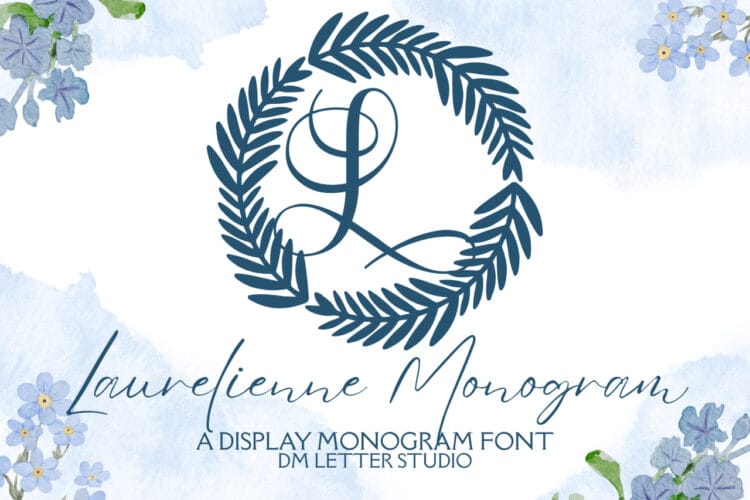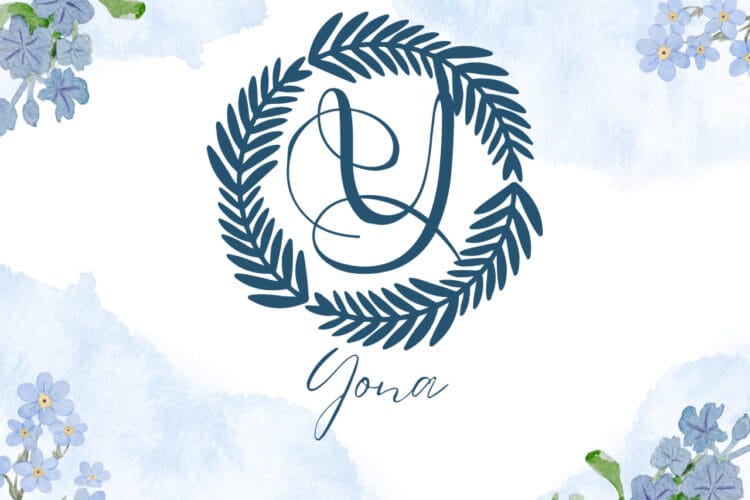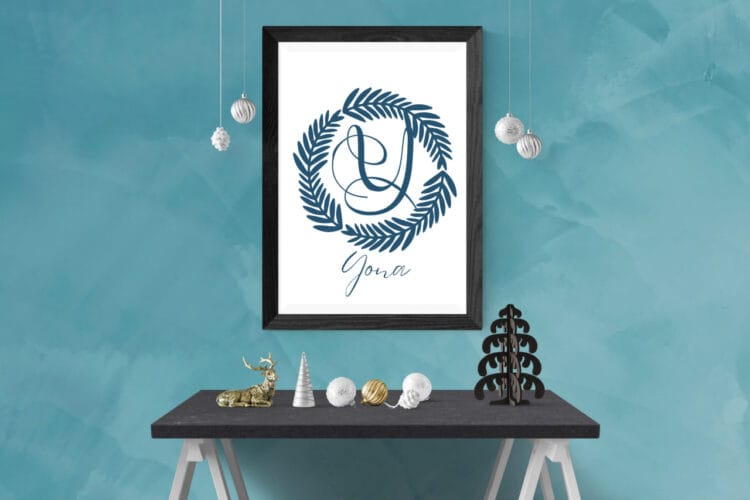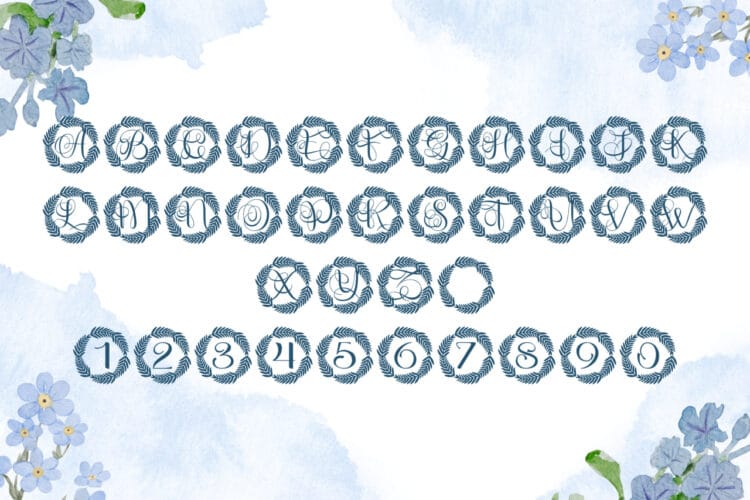
Meet Laurelienne, the Monogram Font
Laurelienne Monogram turns simple initials into graceful laurel-inspired emblems that feel timeless, classic, and premium. The strokes are smooth and balanced, so letters stay clear at any size. Because counters remain open, tiny tags print crisp while large signage looks elegant and refined. Use it for wedding suites, boutique logos, keepsake gifts, wax seals, stationery, and luxury packaging. As a result, your designs gain a polished botanical charm that looks gift-ready right away.
Why Laurelienne Monogram sells
Fast layouts with the Laurelienne Monogram Font
Start with a generous initial and let white space frame it. After that, add names, dates, or short titles in a simple supporting font. Because Laurelienne holds shape at small sizes, cards, cartons, acrylic signs, and tags print beautifully. In addition, the proportions love wreath frames, laurel rings, oval borders, and minimal line accents, so full sets come together in minutes. Finally, save palette pairs like sage & ivory, champagne & charcoal, navy & pearl, or cocoa & cream to repeat across product lines.
Creative uses and quick wins
Logo seals, place cards, and certificate badges
Wax seals, ribbon tags, and keepsake boxes
Invitation covers, menu headings, and table numbers
Favor stickers, tissue labels, and thank-you notes
Select stylistic alternates for key letters
Design tips for Laurelienne Monogram Font